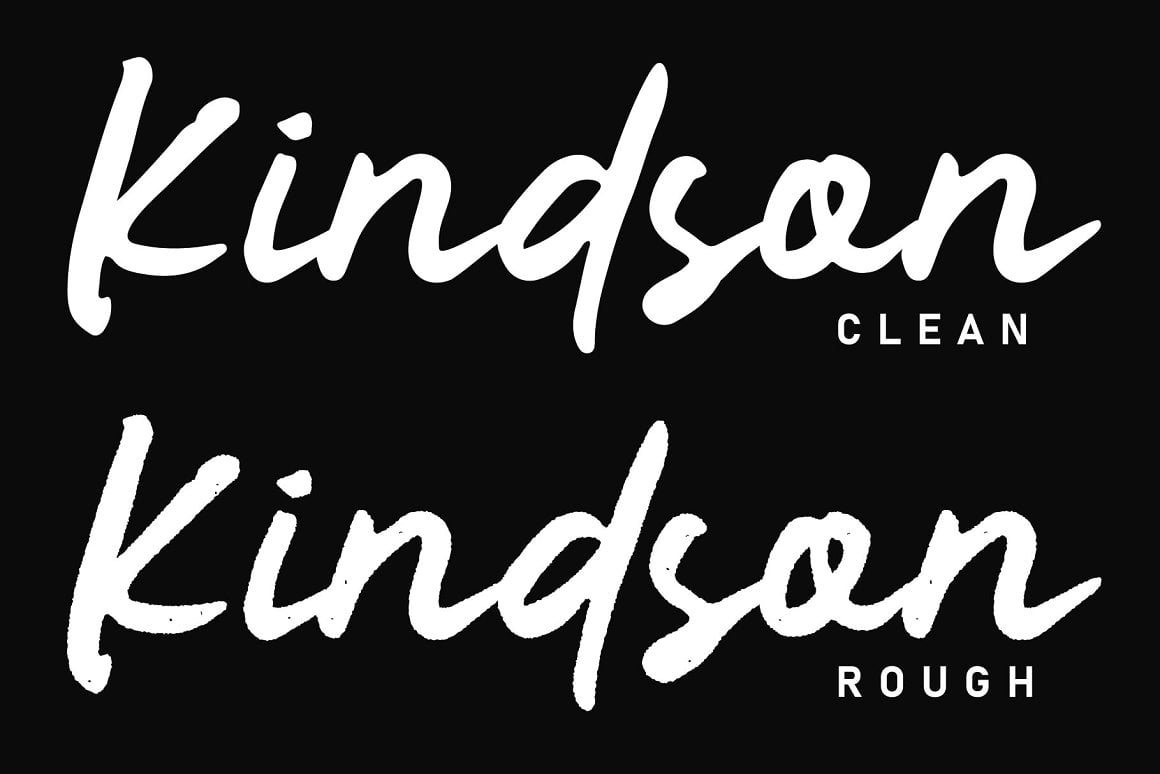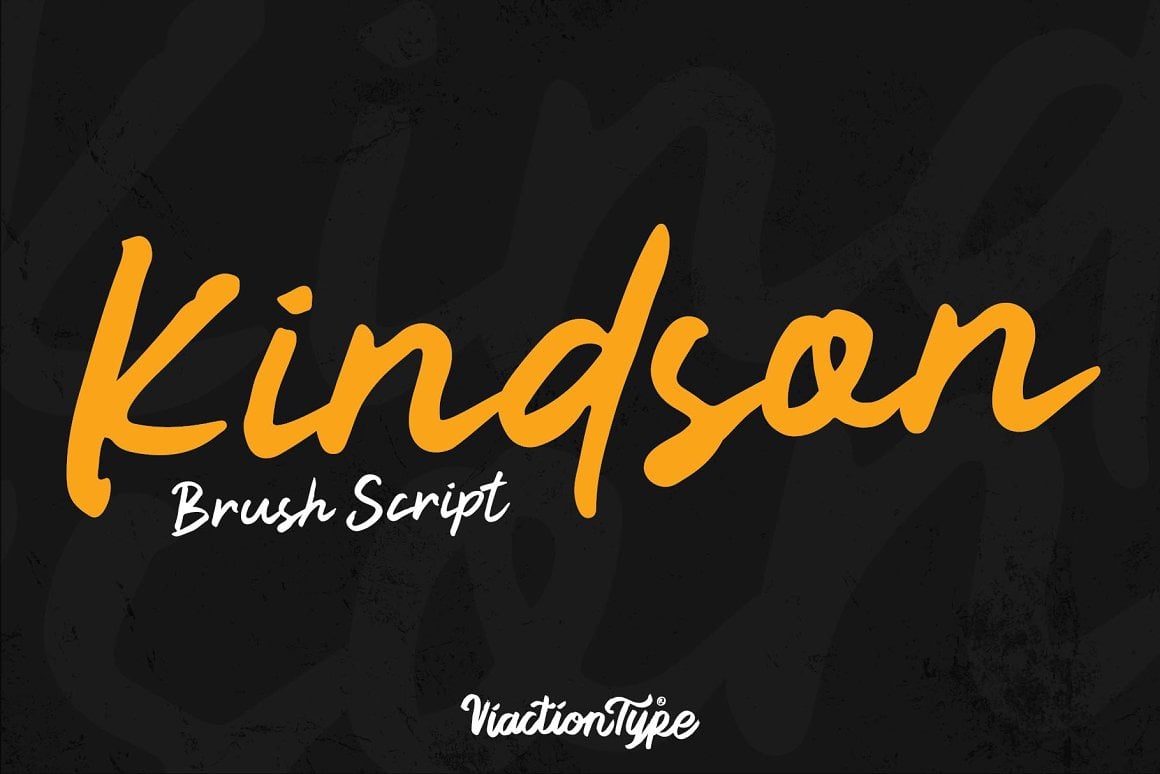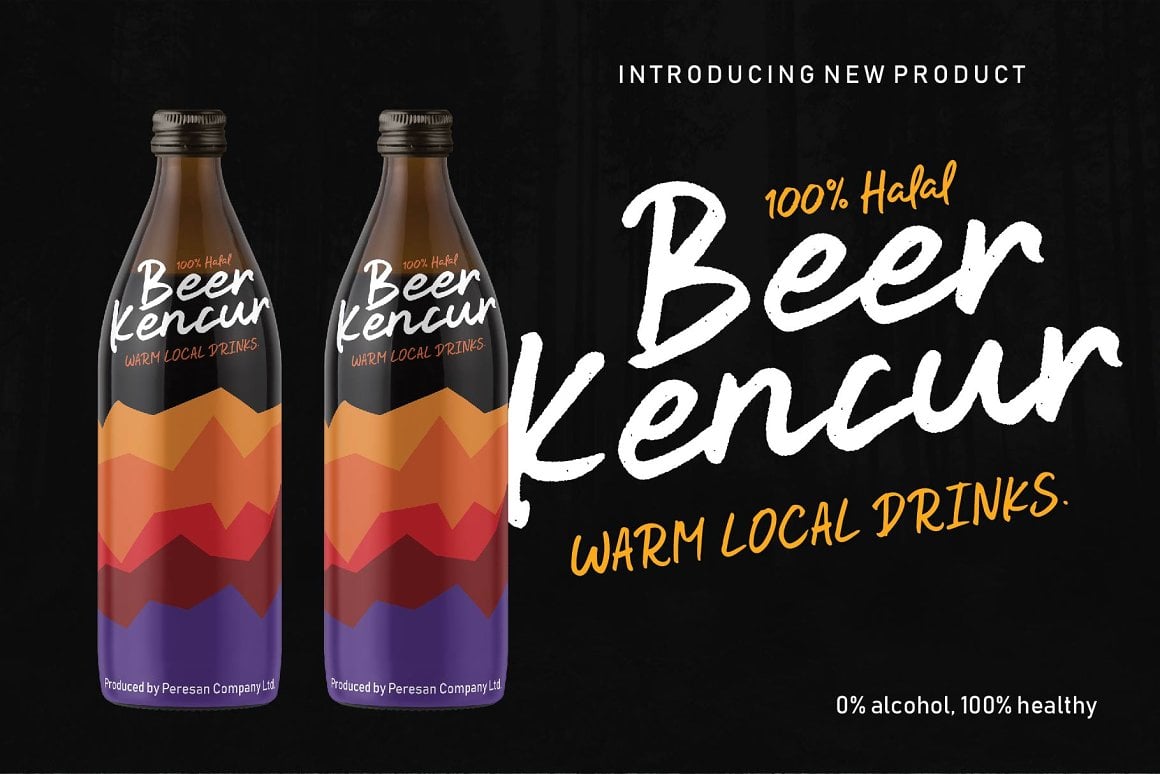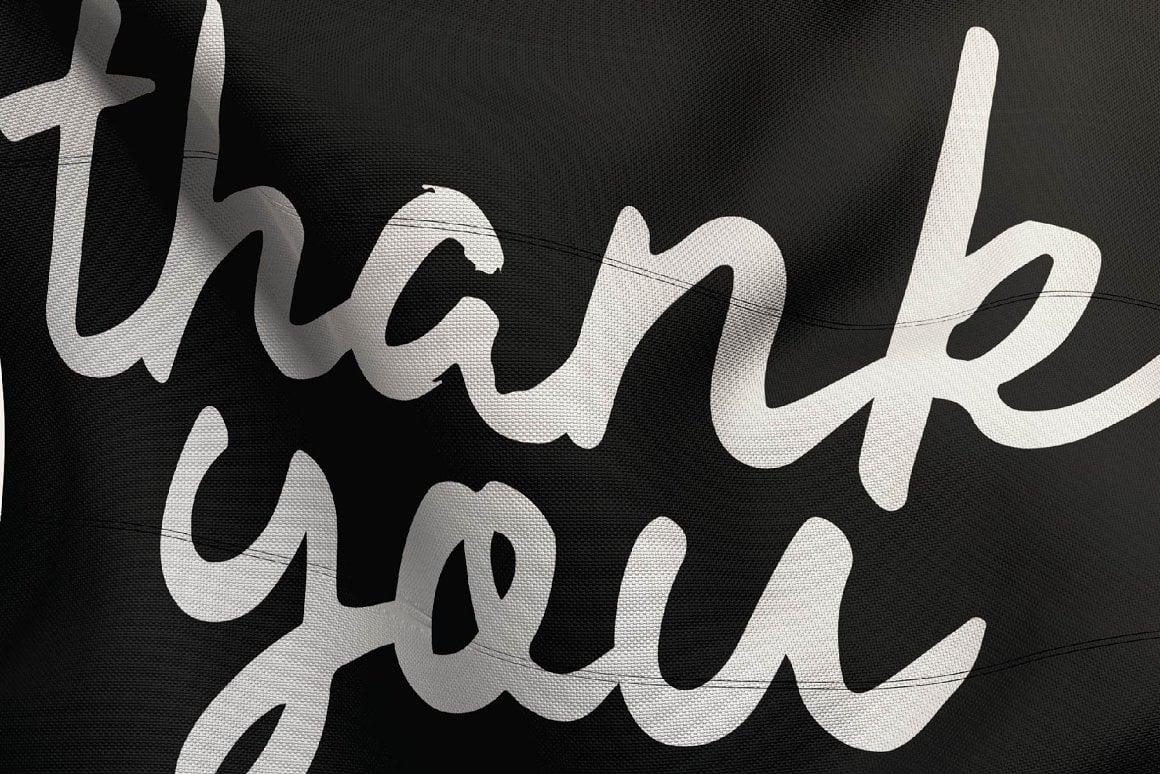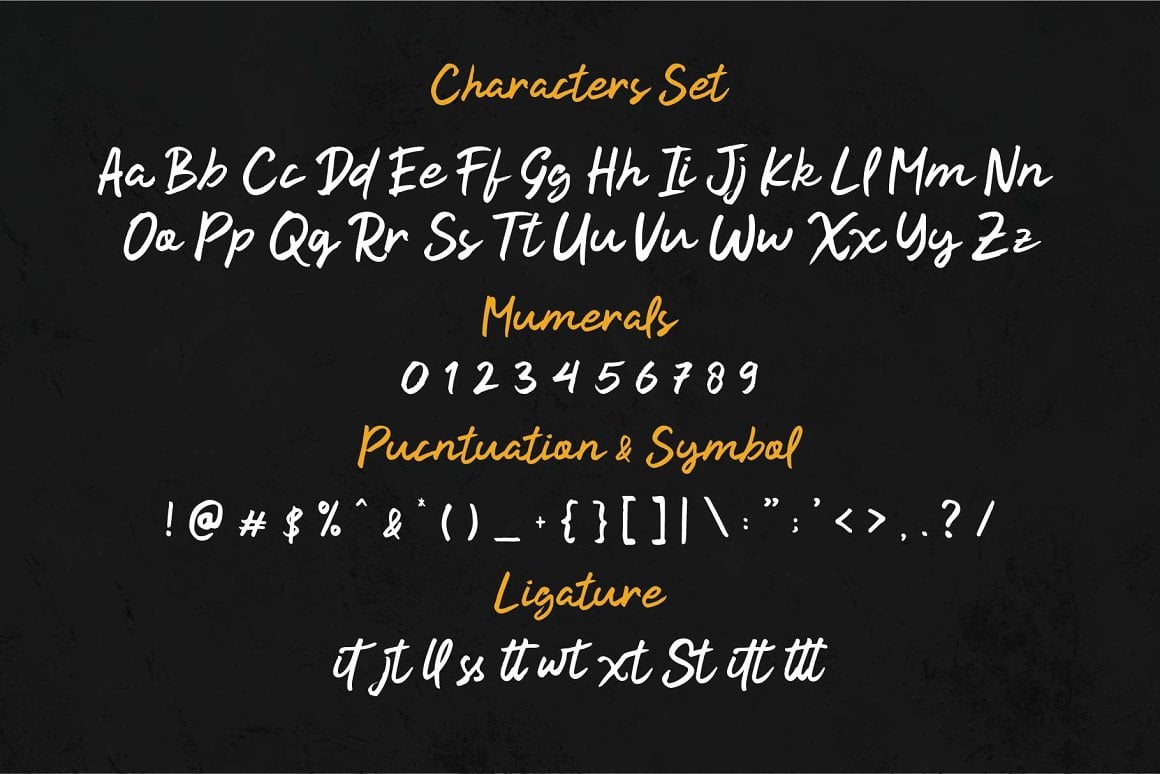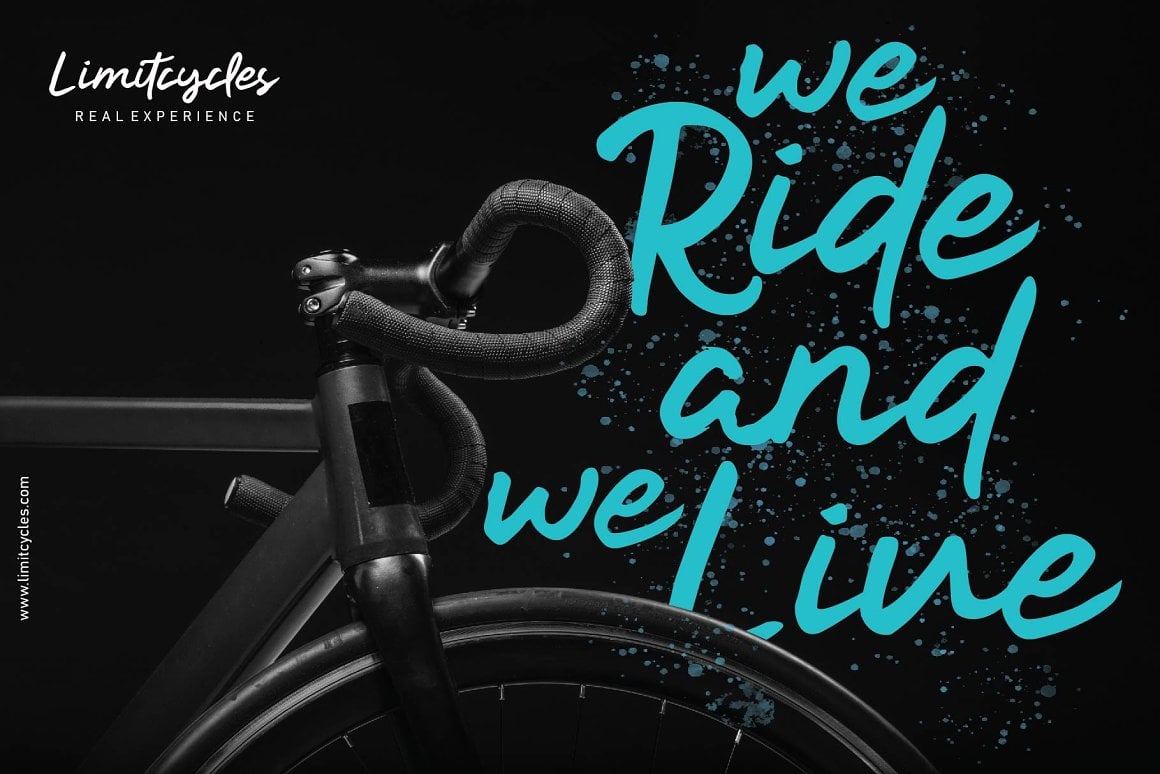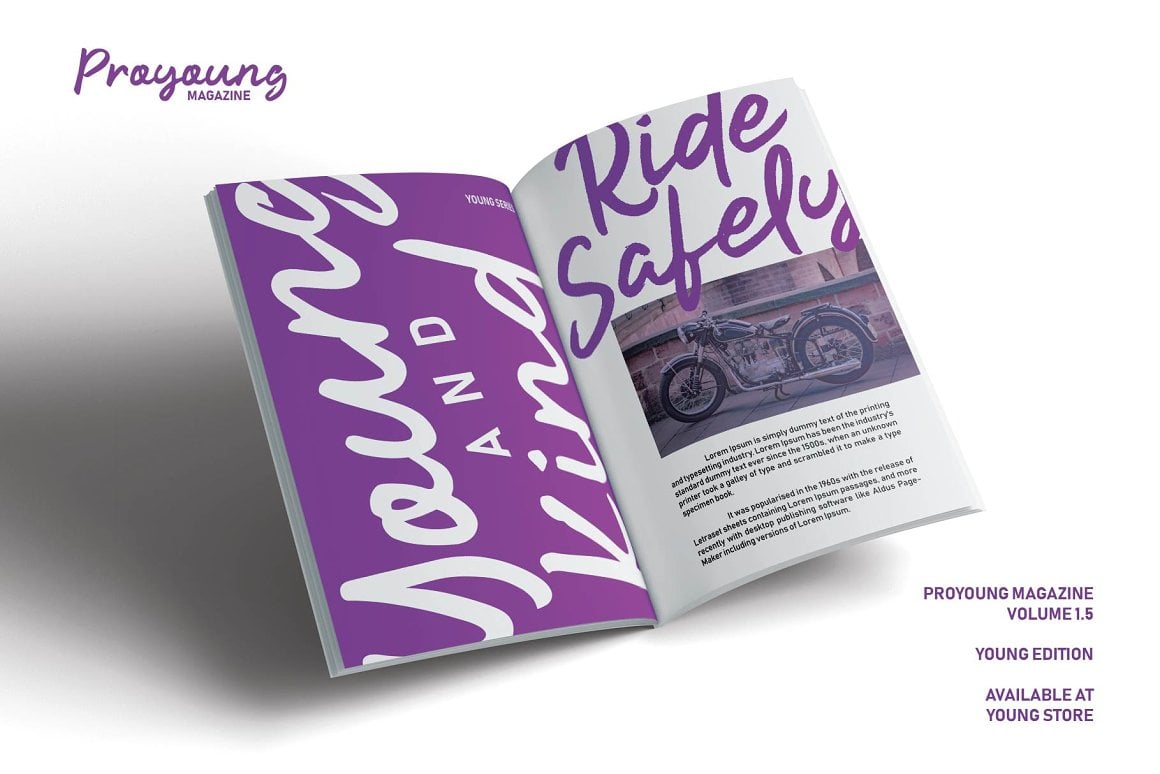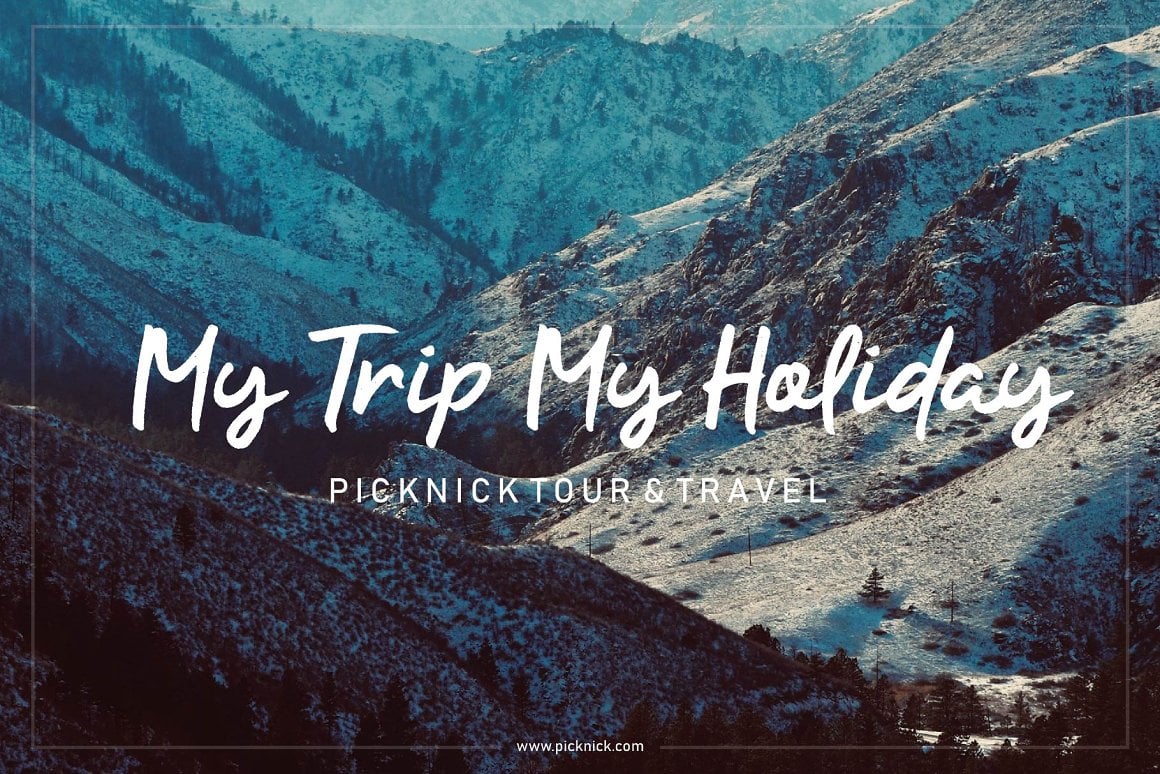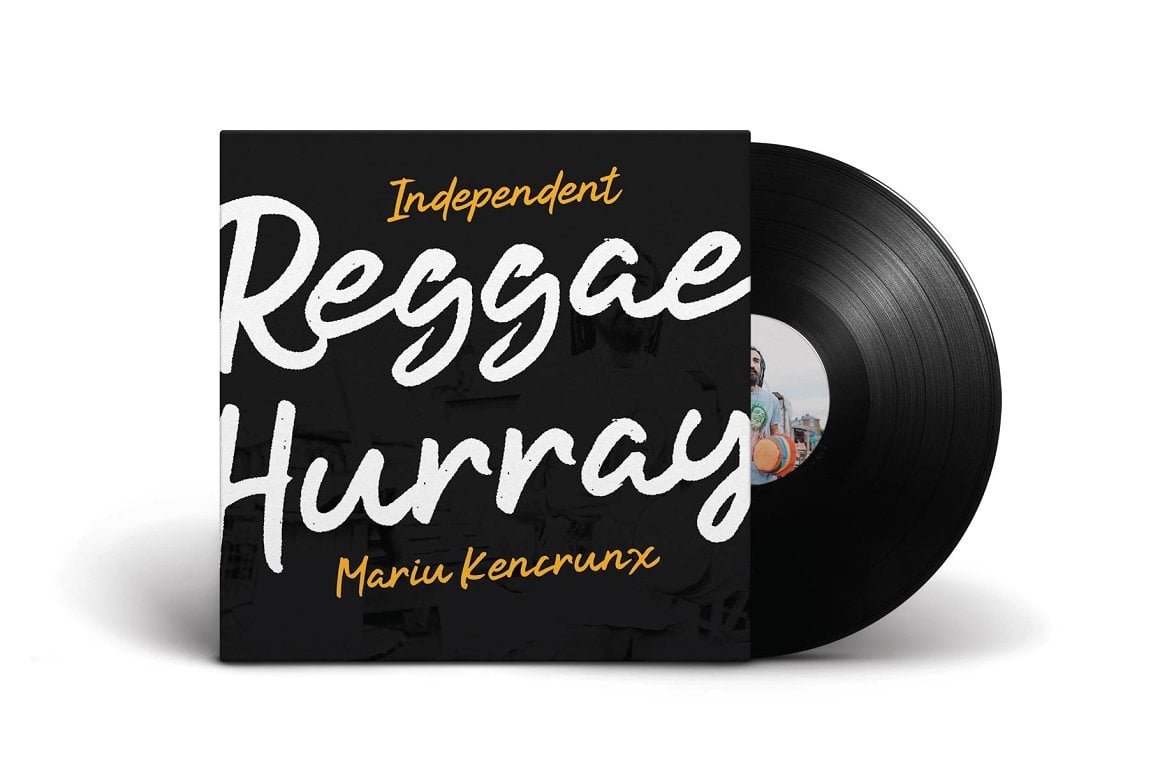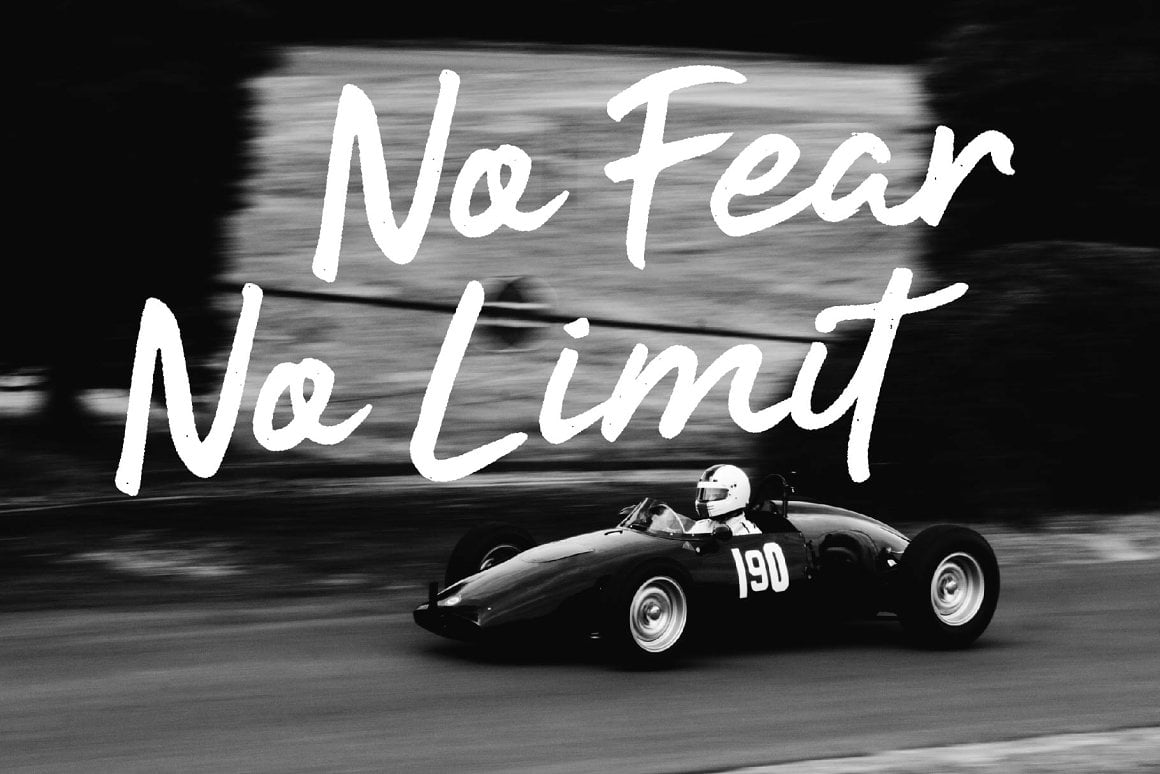
Kindson Brush Font
Kindson brush script fonts with a strong handwriting style and available 2 styles: Kindson Clean & Kindson Rough. Kindson fonts are perfect for various purposes such as boutique brands, photography, magazine, quote, business cards, logos, posters, labels and many more. Kindson is equipped with multilingual support, ligature and PUA Encoded.